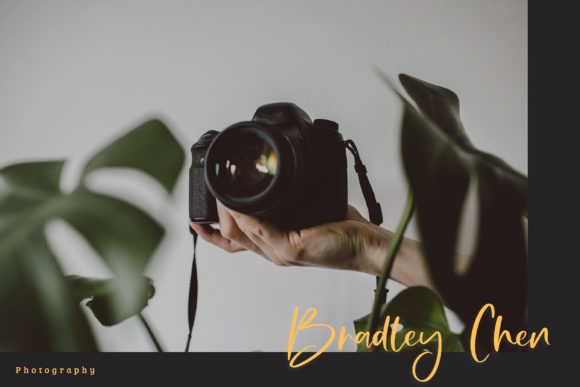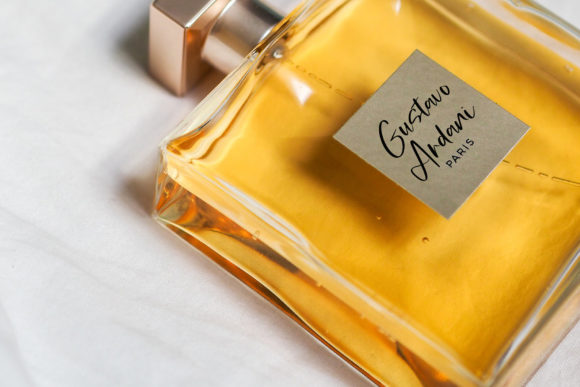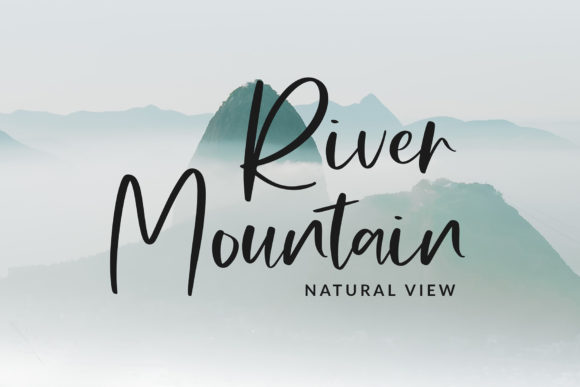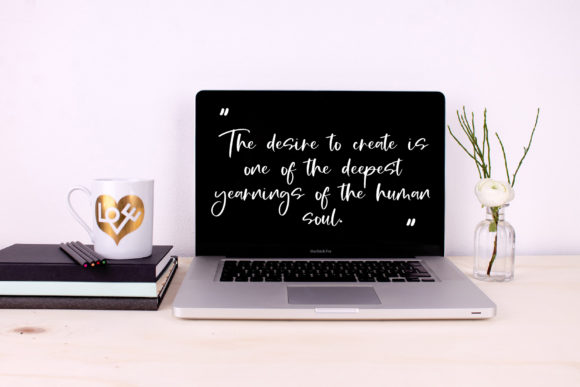
About Bellossom Font
Bellossom is a relaxed and timeless handwritten font. Flowing and versatile, this font will be the ideal choice for creating invitations, cards and any other design which needs a handwritten touch.